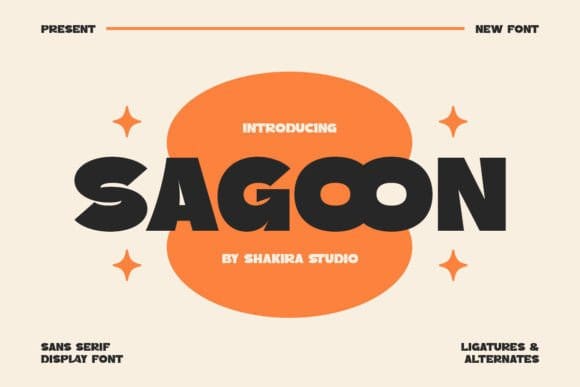
Sagoon Font
Sagoon Font is the ultimate choice for those seeking a modern and robust typeface. Perfectly capturing the essence of SansSerif and Typography Trends, Sagoon stands out with its bold and eye-catching design.
With its thick, impactful characters, Sagoon is ideal for creating striking headlines, posters, and branding materials. The inclusion of stylish ligatures and alternates adds a unique flair, making your designs truly memorable.